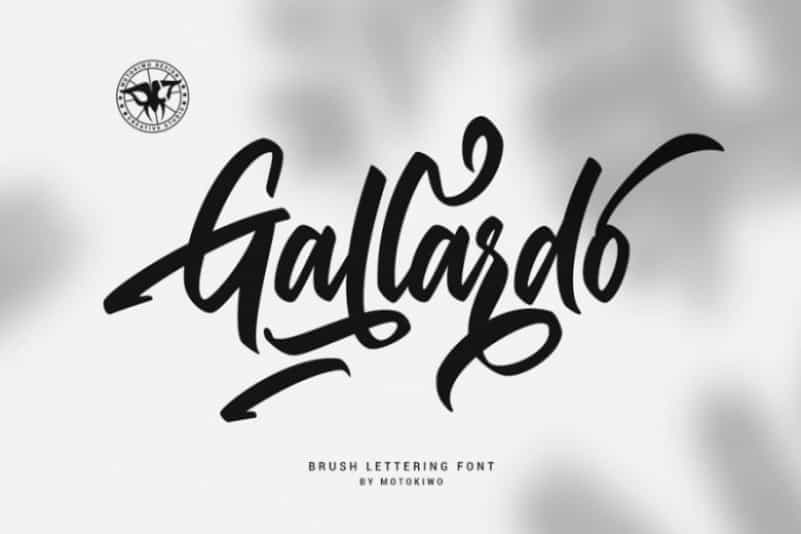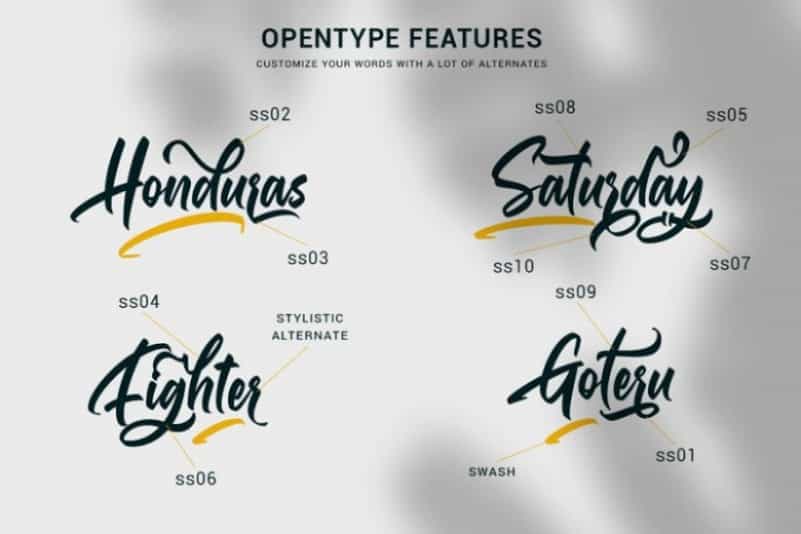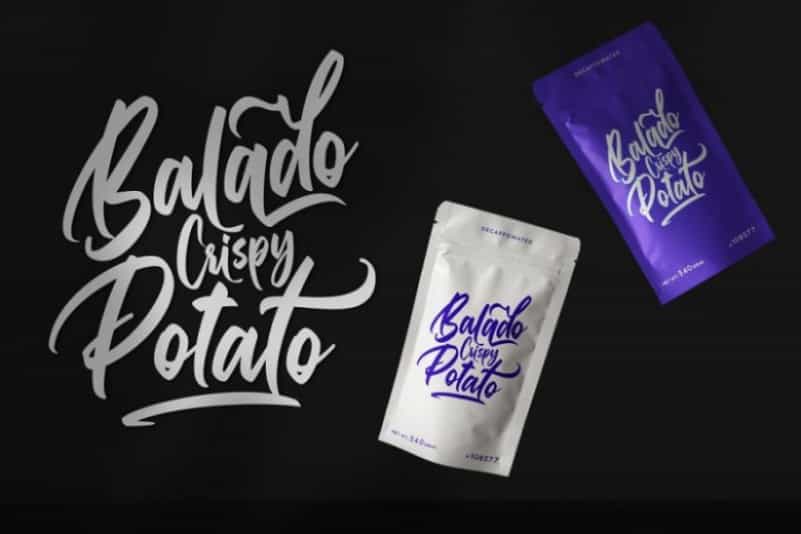
Gallardo is a custom brush lettering font with lots of alternatives. It is neat, strong and elegant script that very practical for different projects. It is super for urban style as well as for vintage. Gallardo is very easy to customize because it has been PUA Encoded and also supports special characters for multilingual. You will also receive the Prototype Version, a crude version of Gallardo.